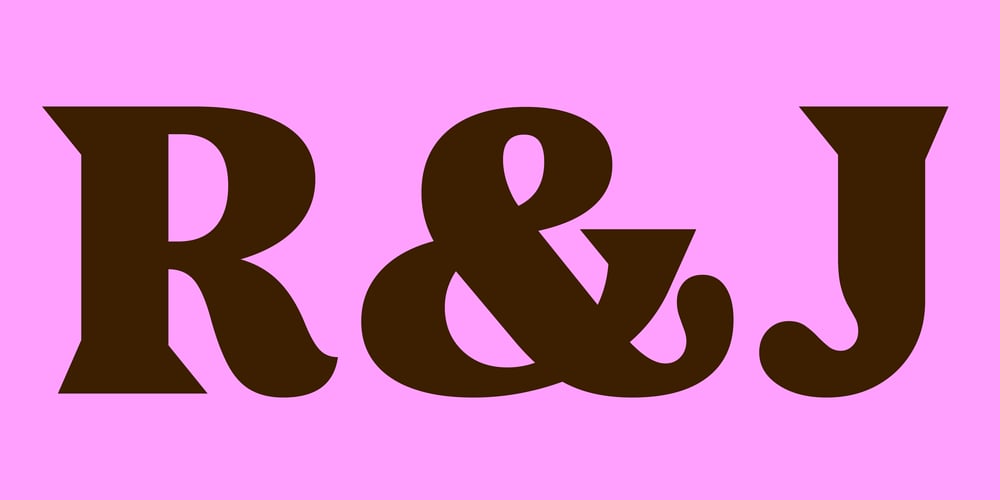
Nib Font Family was designed by Dries Wiewauters and published by Studio Dries Wiewauters. Nib contains 12 styles and family package options. Although originally Nib was triggered by a stone carving Dries Wiewauters spotted in Denmark, the final family is a blend of multiple influences. Initially developed for the MSK — the Museum of Fine Arts in Ghent, Belgium — in close collaboration with Ruud Ruttens, the head of their design department, Nib is now available for licensing. Both the serifs and idiosyncratic overhanging forms such as the «f», «j» and «y» give it an elegant, yet eccentric quality. There are multiple different gestures occurring, some based on calligraphy, others from stone-carving, which together create a symbiosis that balances many opposite qualities. Nib strives to be both friendly and aggressive in the same moment, thus allowing it to be molded and applied to a wide range of contexts.